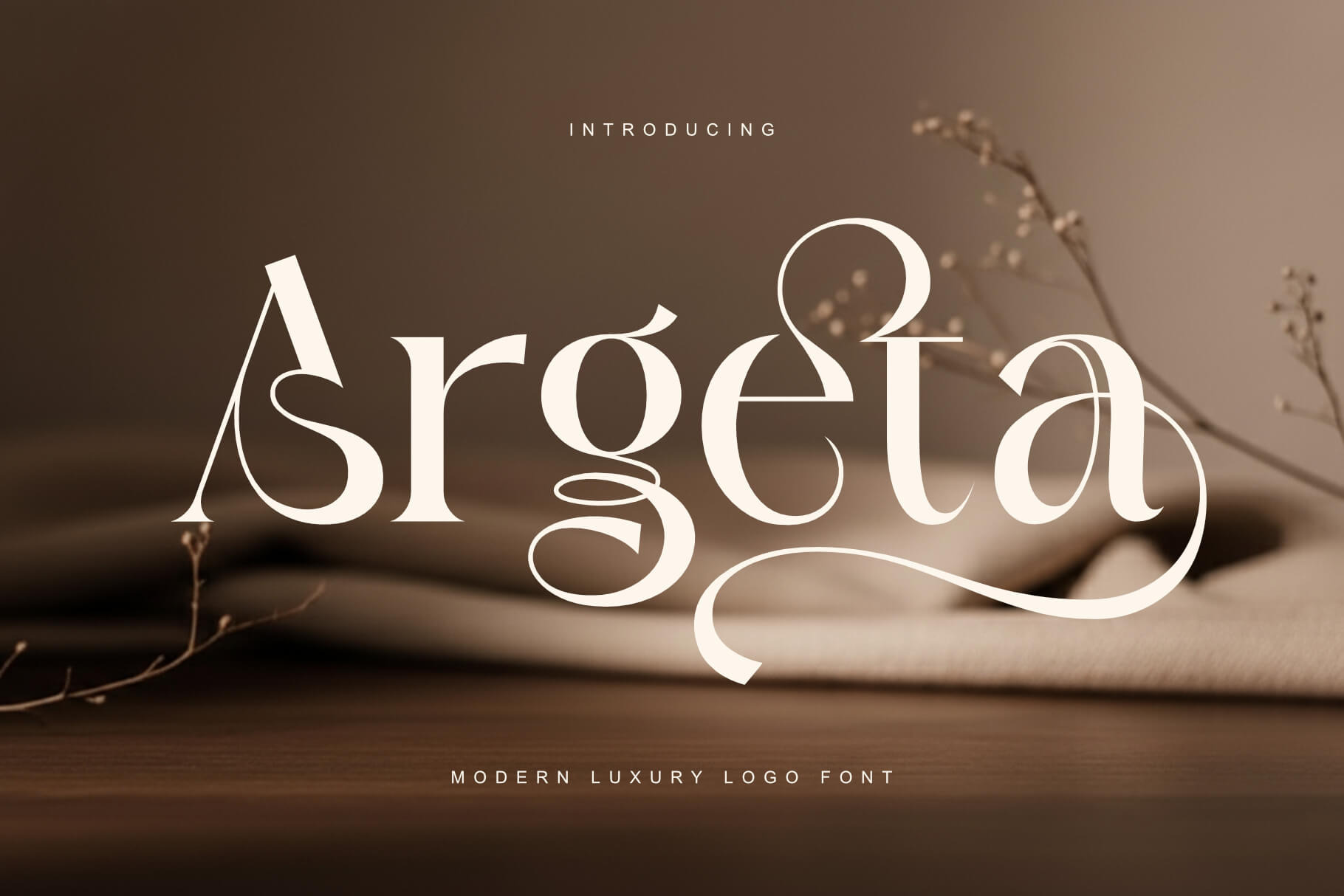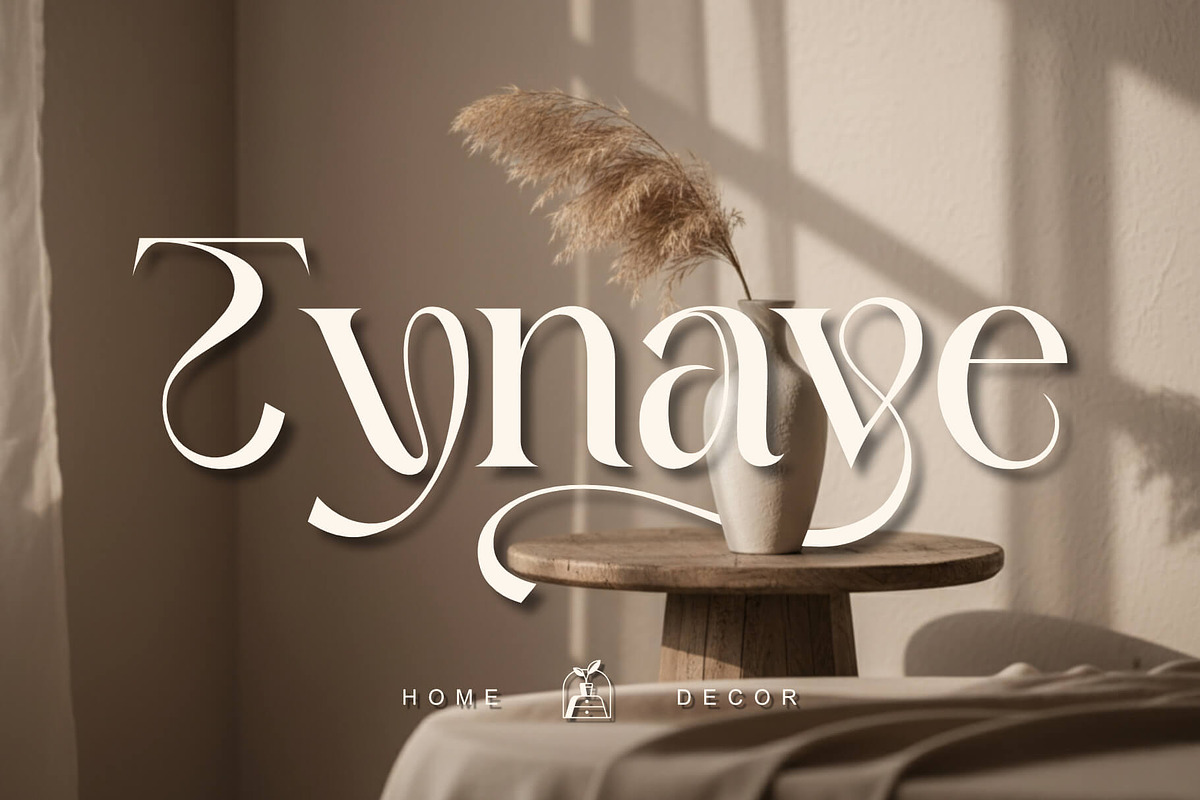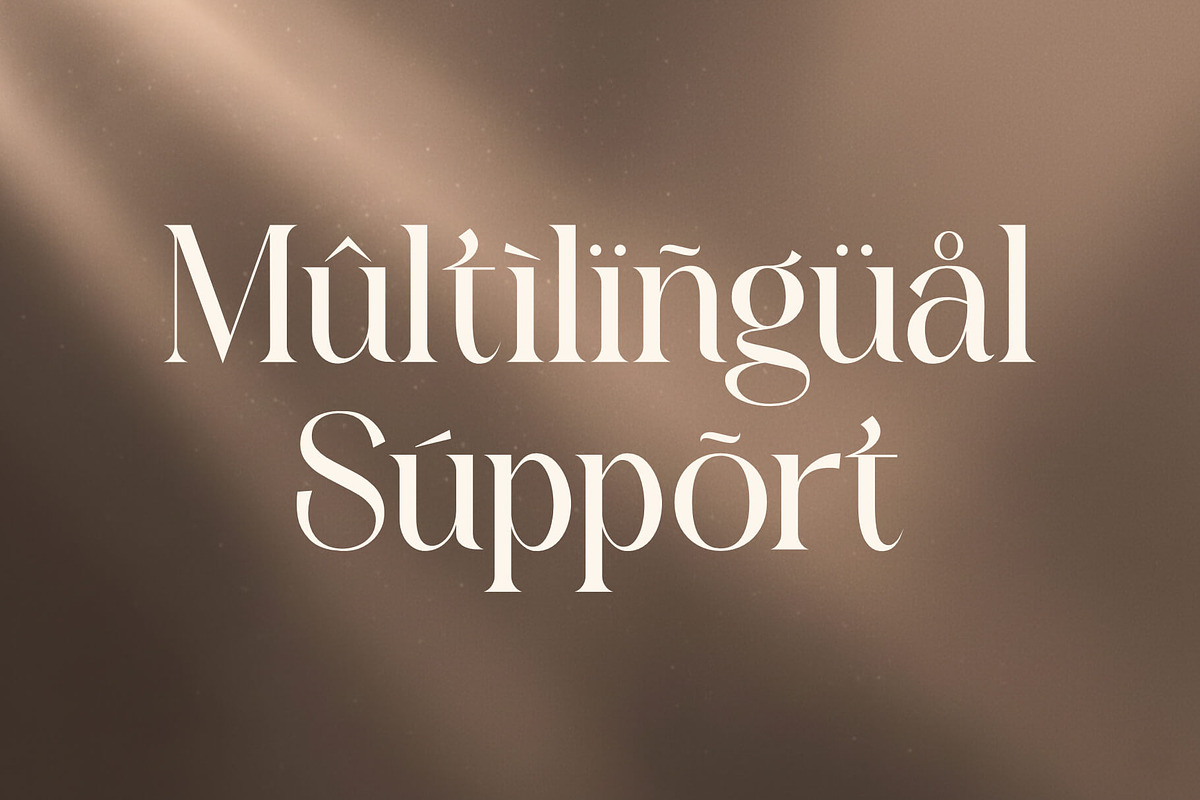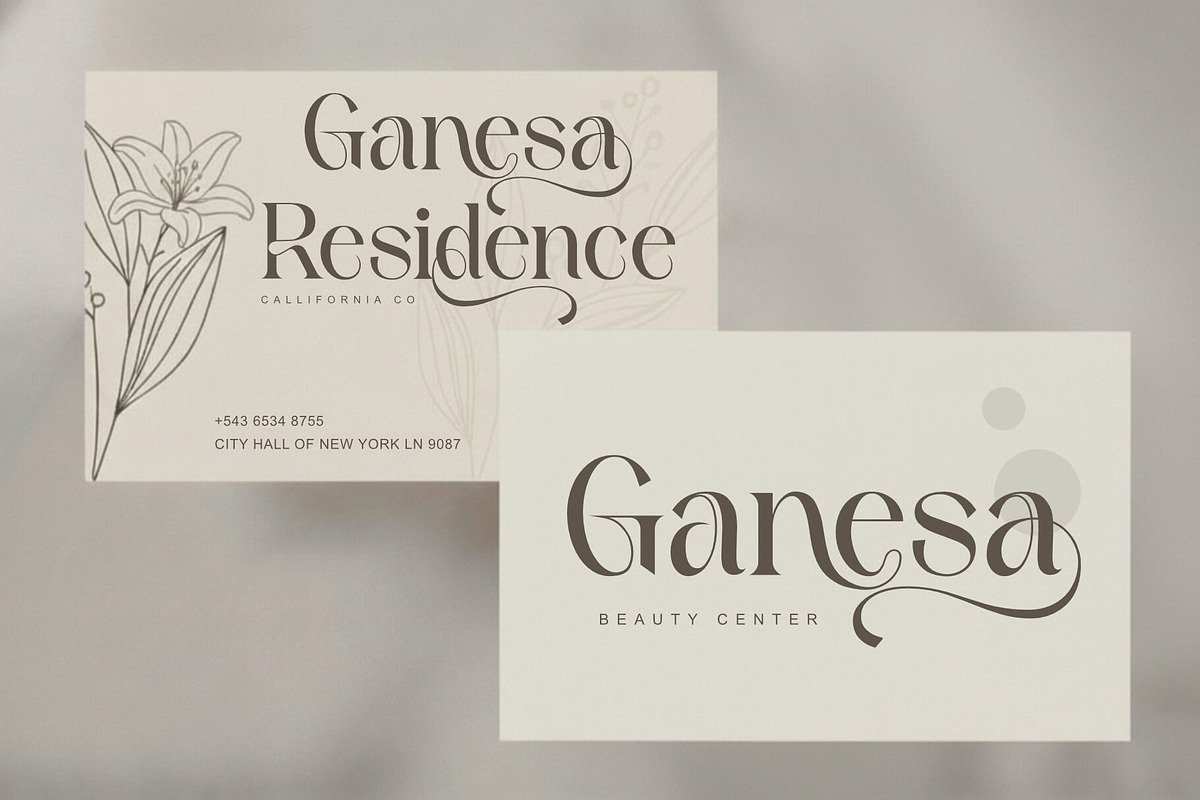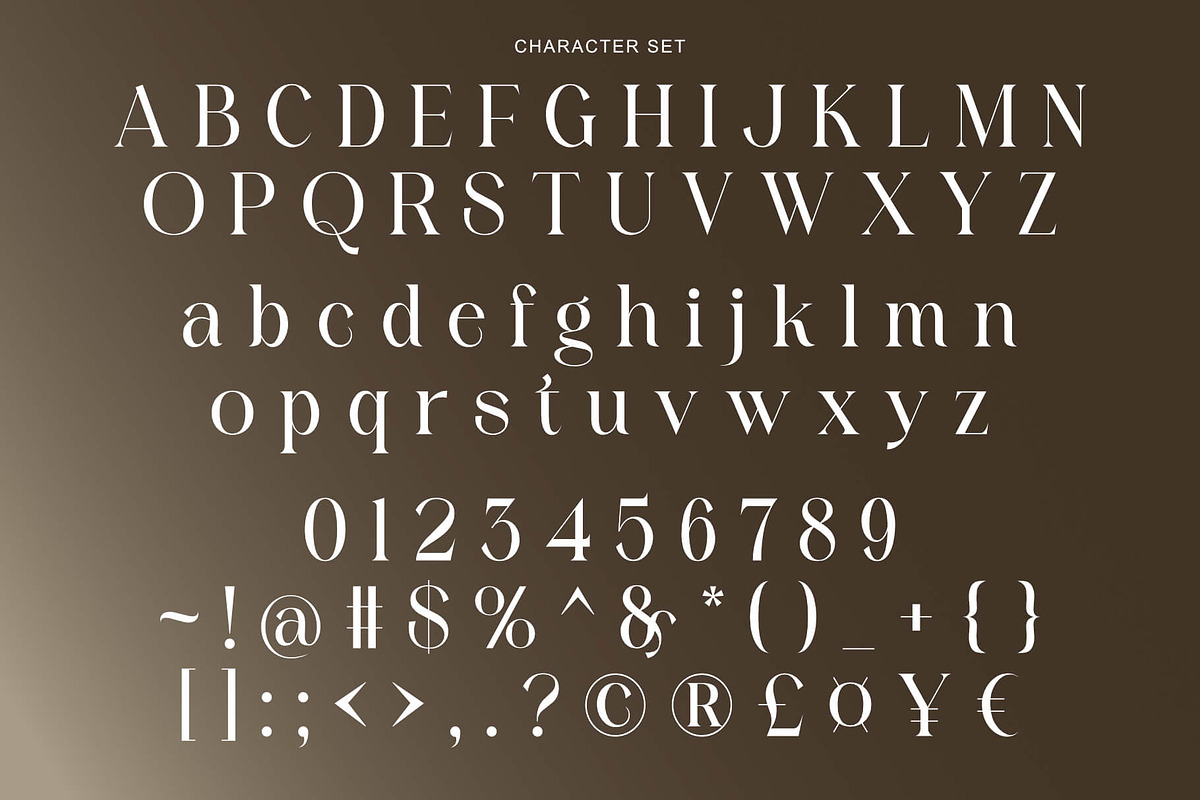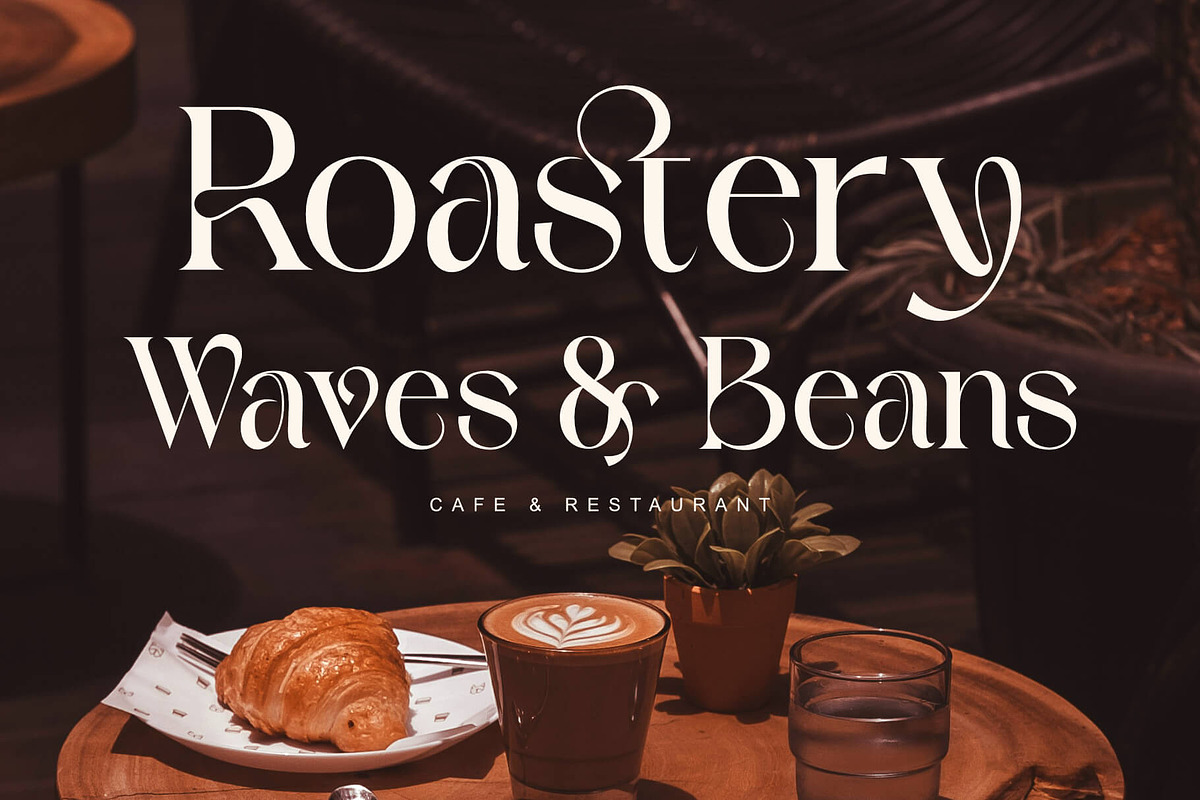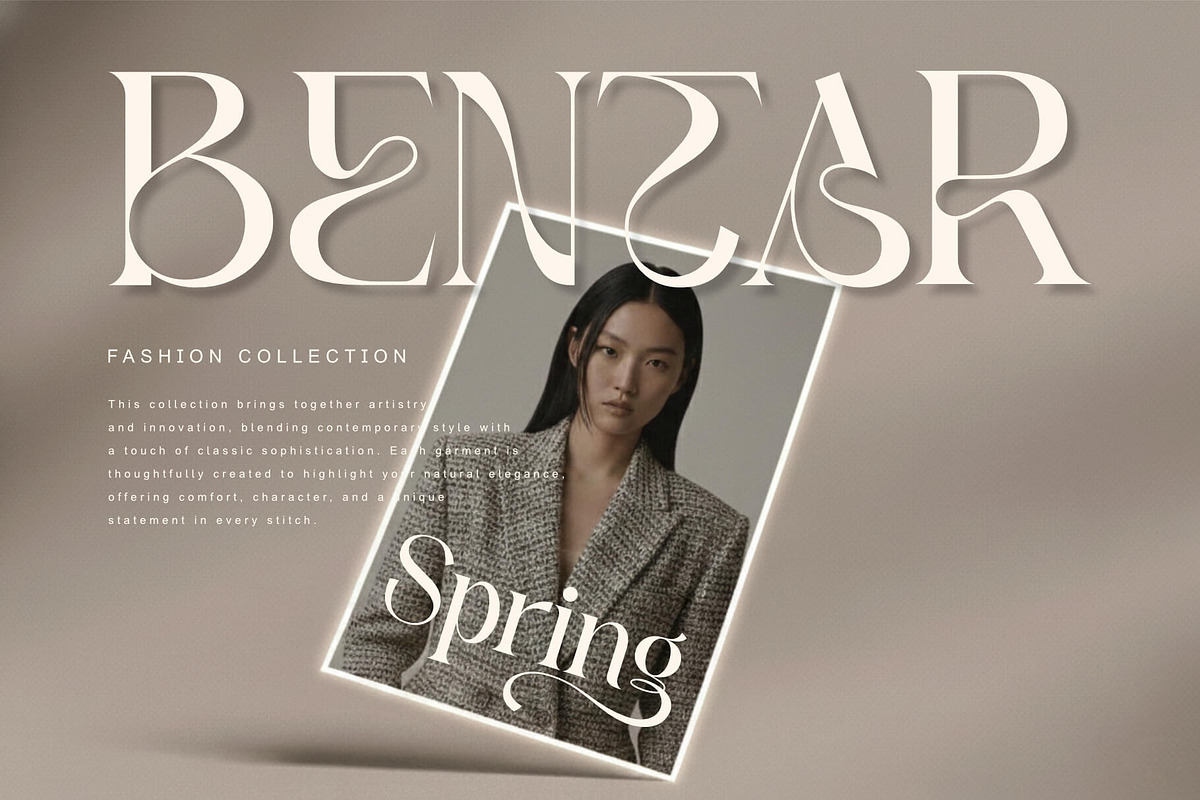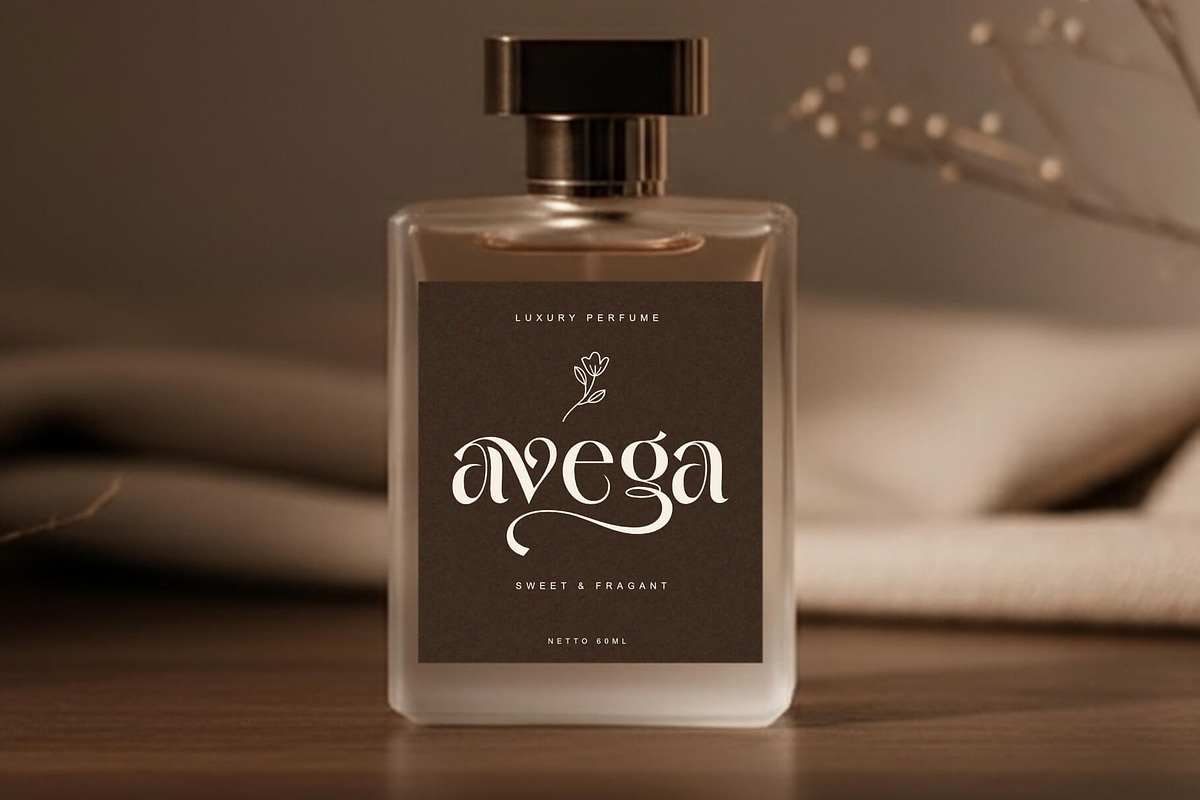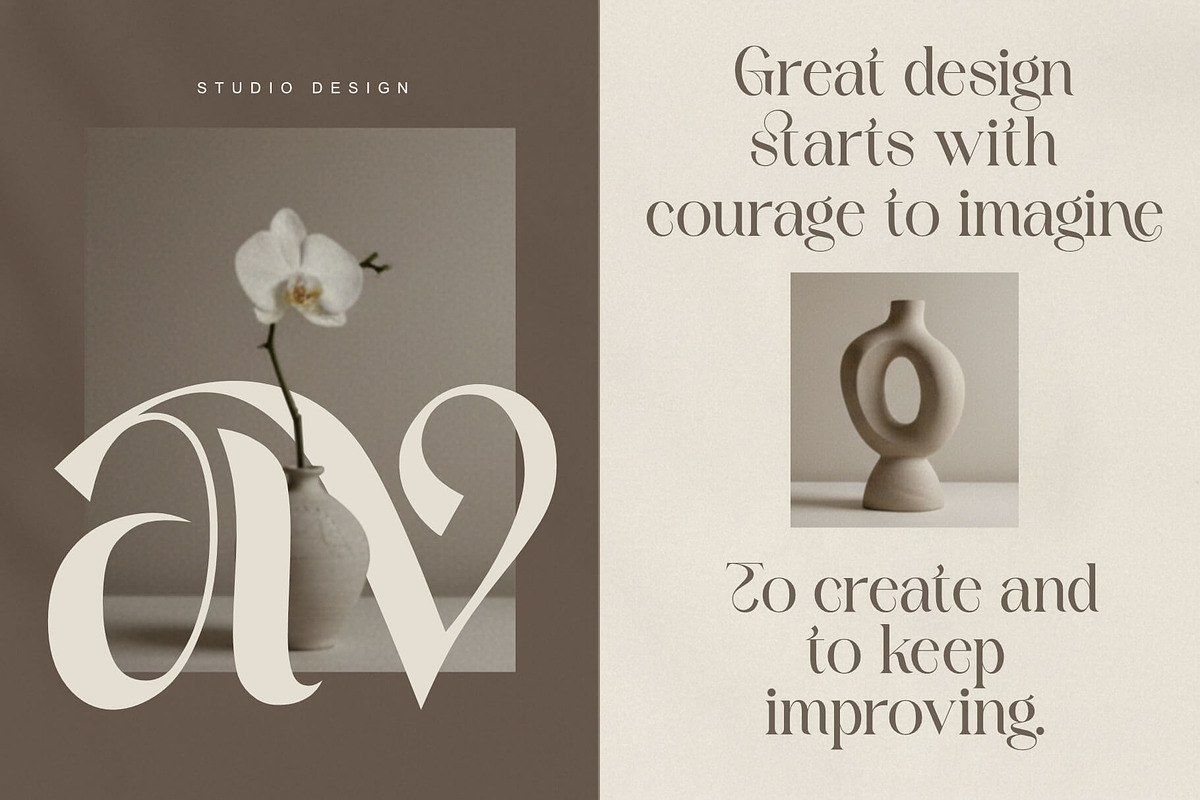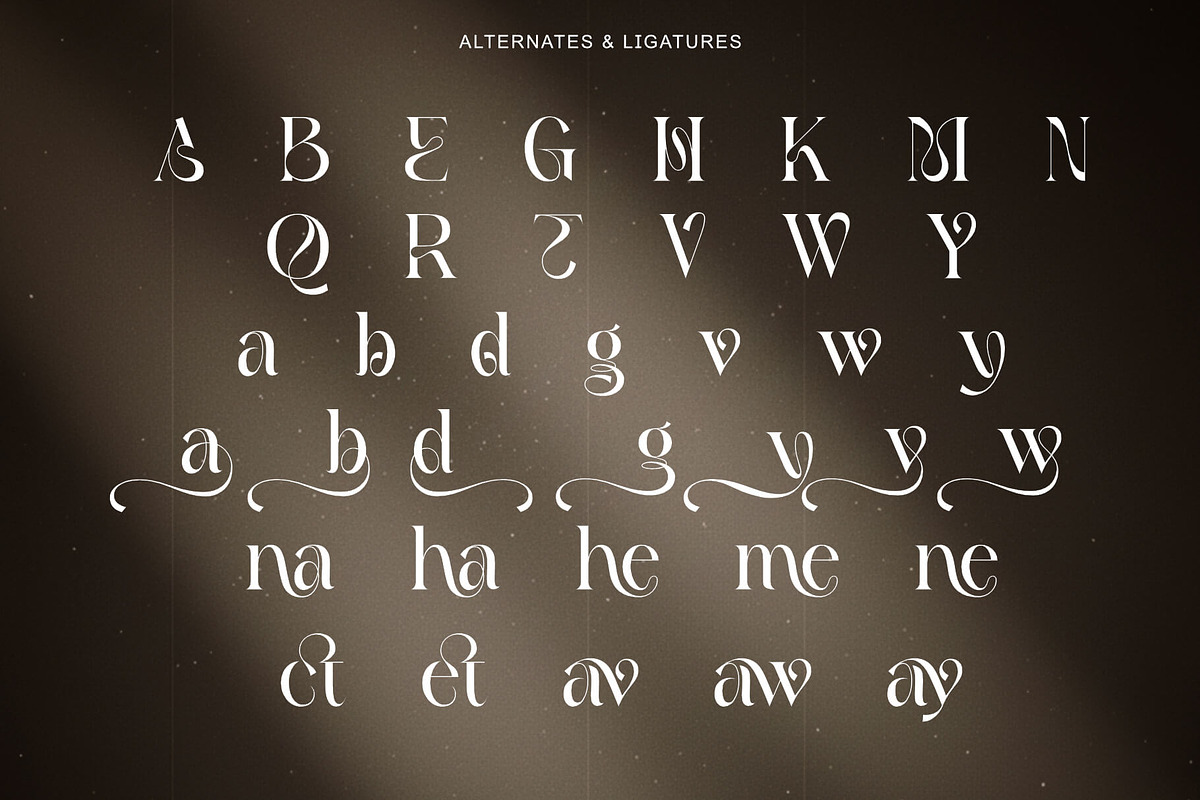
Argeta - Modern Luxury Logo Font
Argeta – Modern Luxury Logo Font
Argeta is a modern luxury serif typeface designed to bring an elegant, premium, and artistic touch to every project. Featuring refined letterforms and beautifully flowing ornamental swashes, Argeta adds a sophisticated character to logos, branding, and high-end visual design.
Each curve is crafted with precision to deliver a stylish and distinctive look, making Argeta the perfect choice for designers who want to create a strong, elegant, and memorable brand identity.
Modern luxury serif style
Elegant alternates & expressive ligatures
Smooth decorative swashes
Perfect for logos, branding, packaging, and editorial design
Beautiful uppercase & lowercase characters
Professionally crafted high-quality letterforms
Premium brand logos
Fashion & beauty branding
Home decor & lifestyle identity
Wedding invitations & stationery
Social media visuals
Luxury product packaging
Design studios & editorial layouts
Complete A–Z character set
Decorative alternates and ligatures
Elegant swashes for expressive design